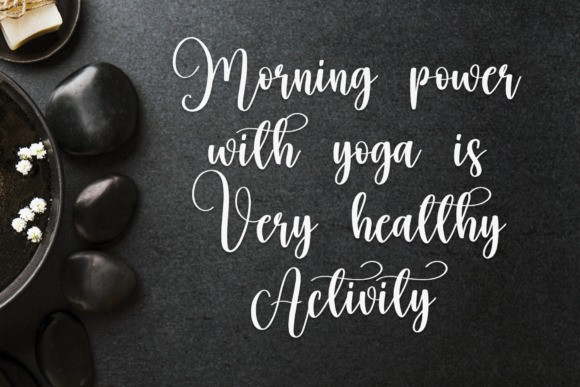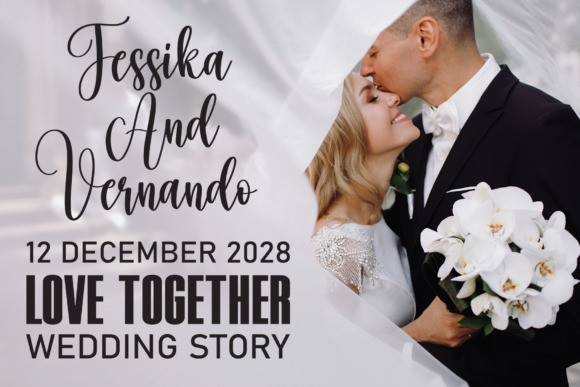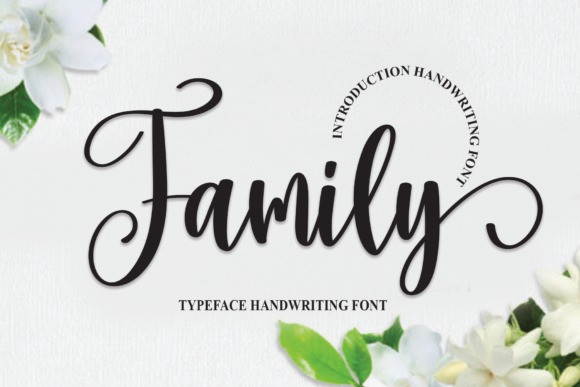
Family Typeface
Family Typeface, is a romantic and stylish handwritten font. Use it to create beautiful wall displays, wedding invitations, social media post logos, advertisements, product packaging, product designs, labels, photography, watermarks, invitations, stationery, or anything else!